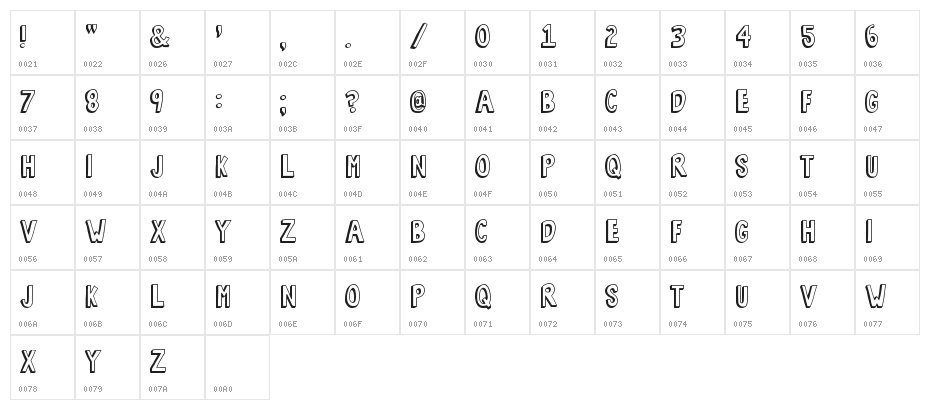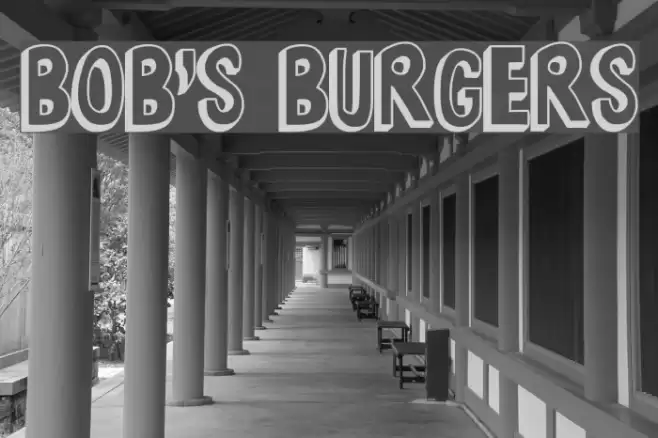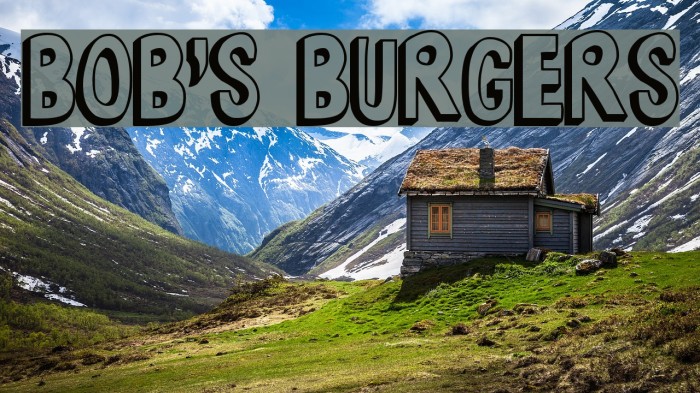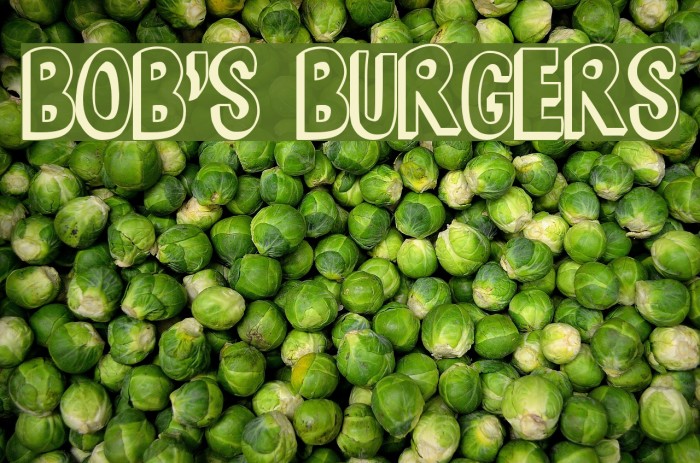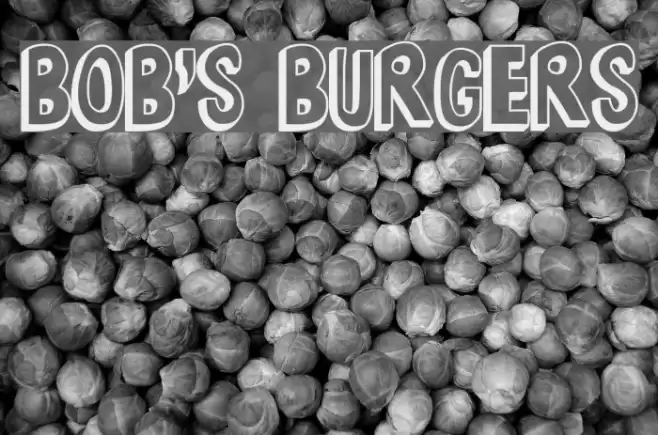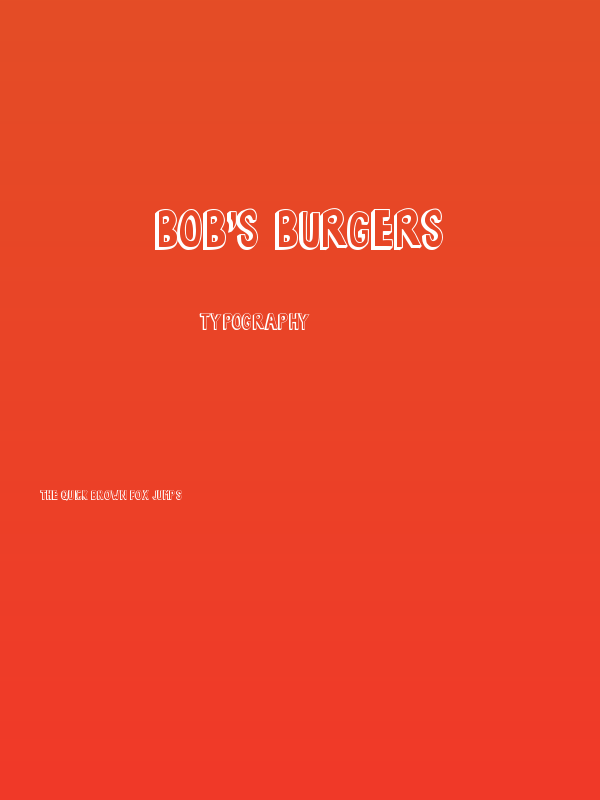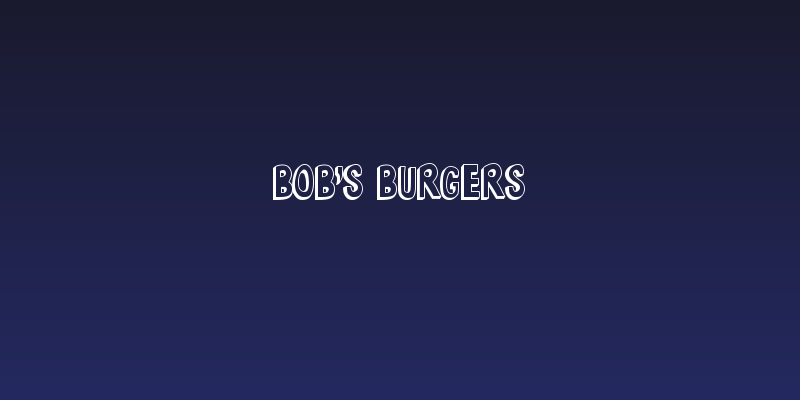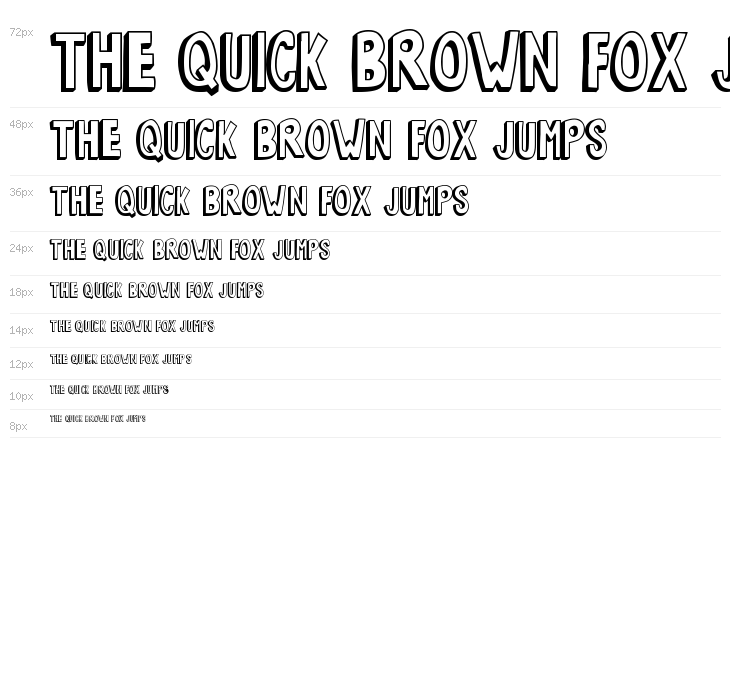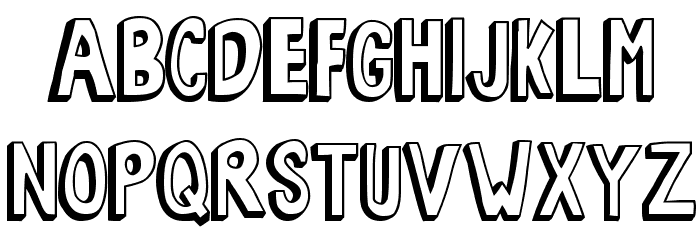
Bob's Burgers Font
Bob's Burgers Description
This font features bold, uppercase letters with a playful, cartoonish style. The characters have a thick outline that gives them a three-dimensional appearance, creating a shadow effect. The font is highly legible and designed to stand out, making it ideal for attention-grabbing headlines or titles. The numbers and special characters maintain the same bold and outlined style, ensuring consistency across all glyphs. The overall design is both fun and dynamic, suitable for projects that require a lively and engaging typeface.